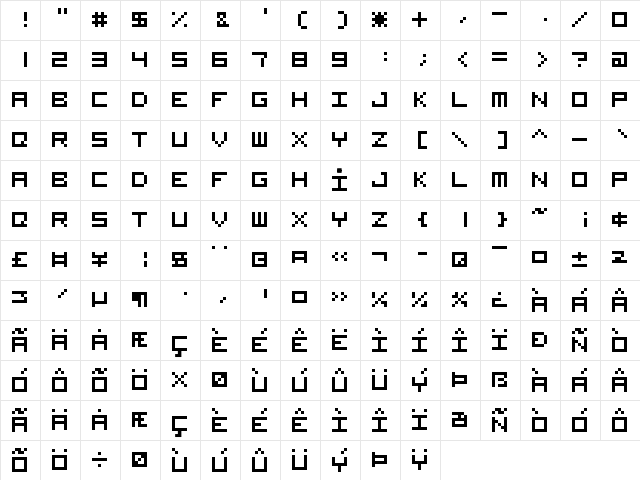
GC Channel F Standard Regular
Design Context for GC Channel F Standard Typeface
GC Channel F Standard offers clean, dependable letterforms without strong stylistic allegiance, making it a practical choice for designers who need flexibility.